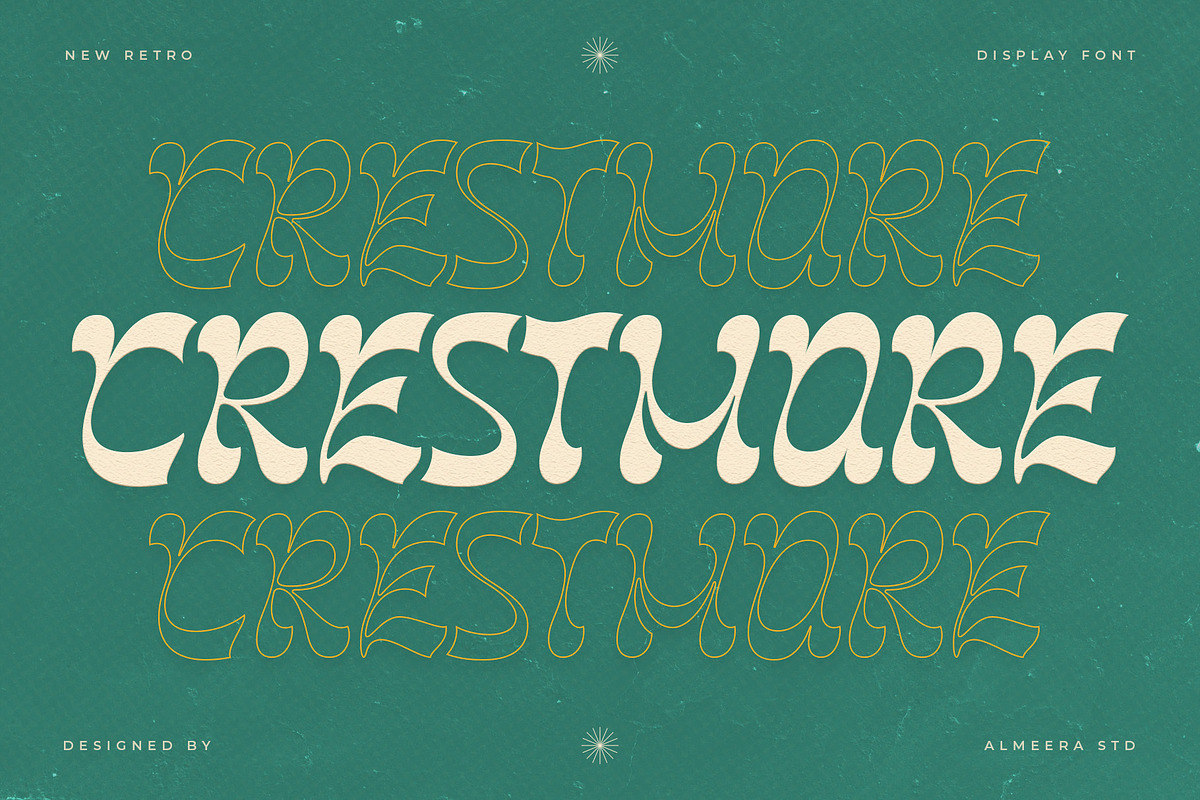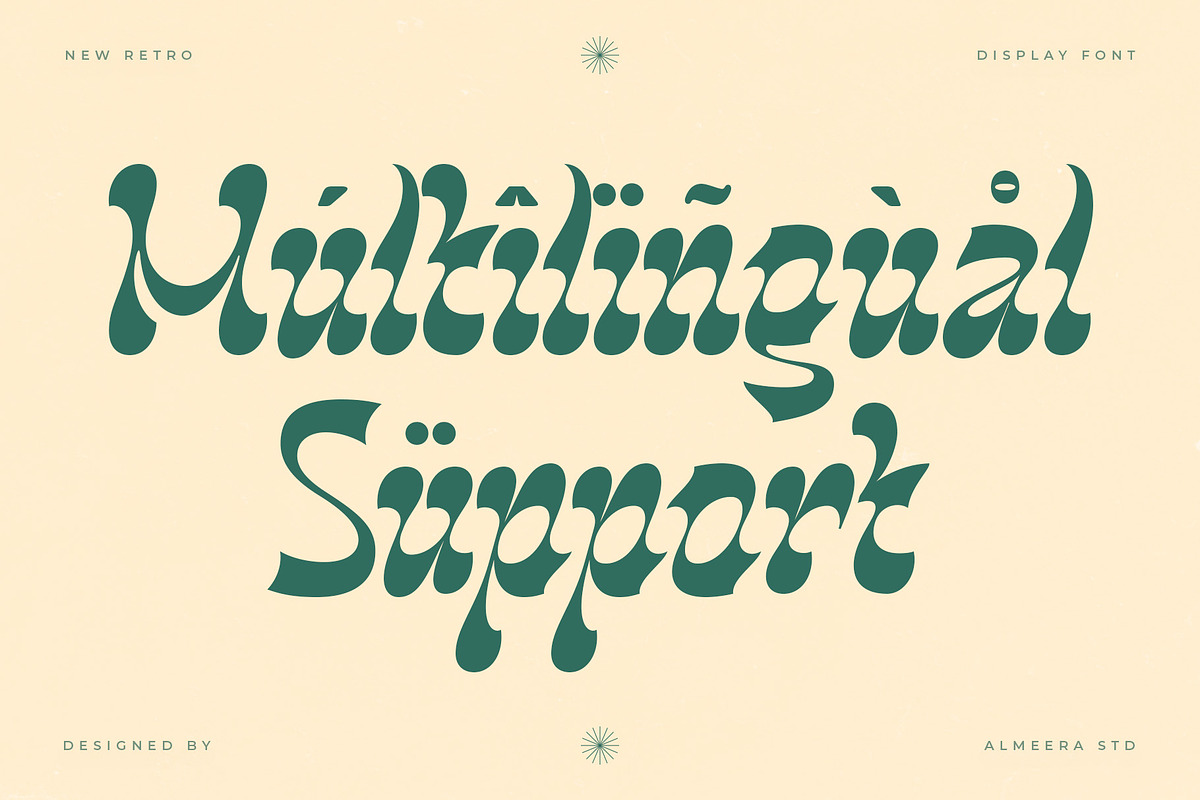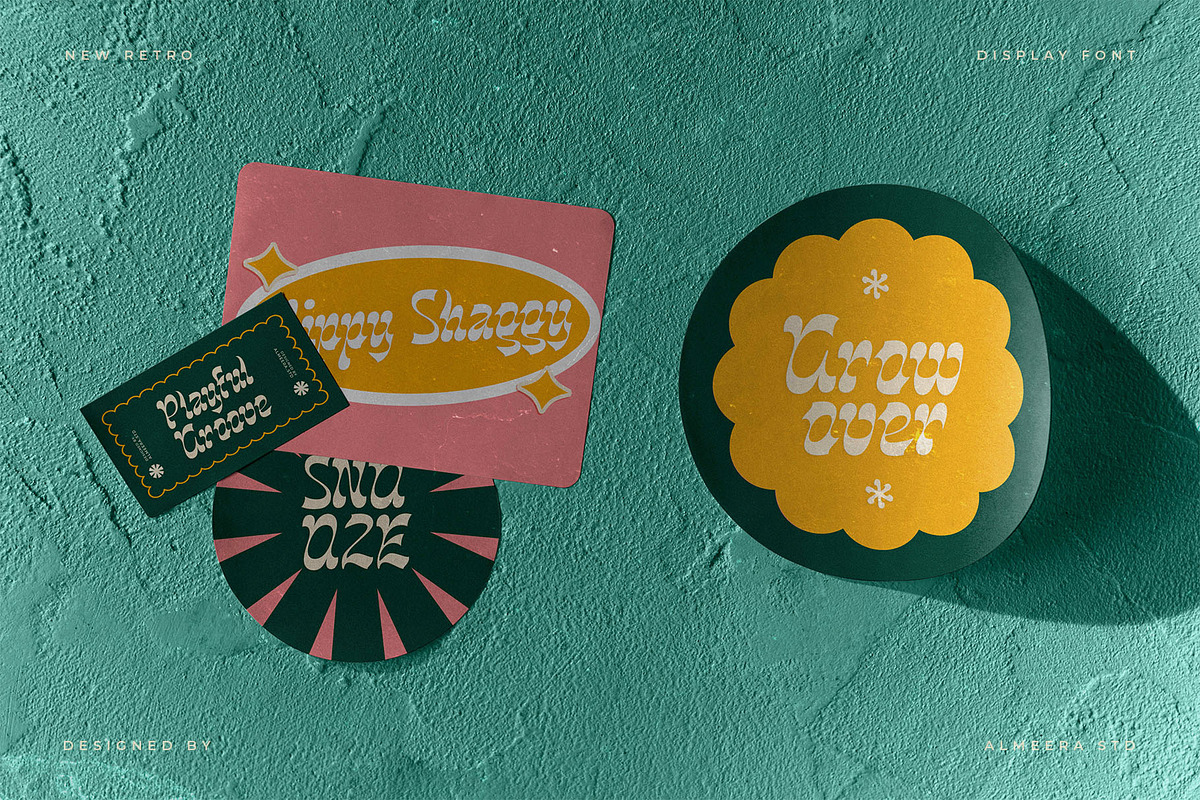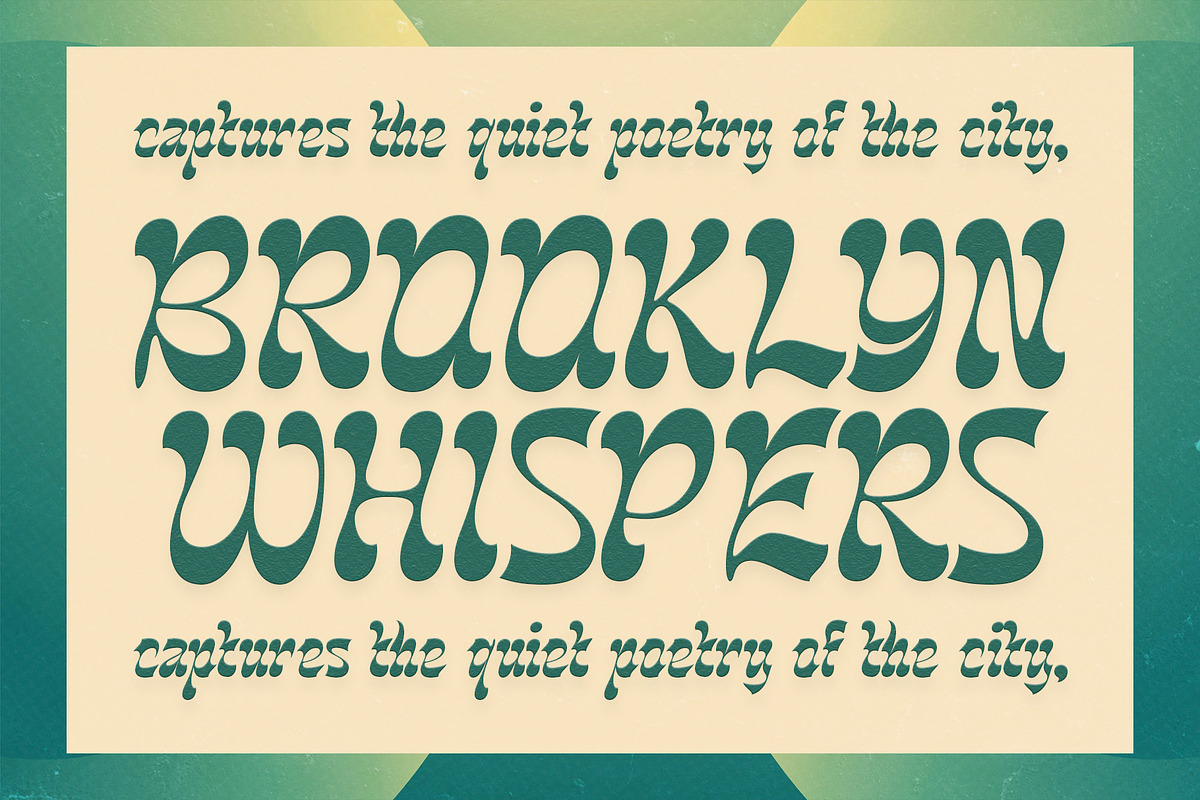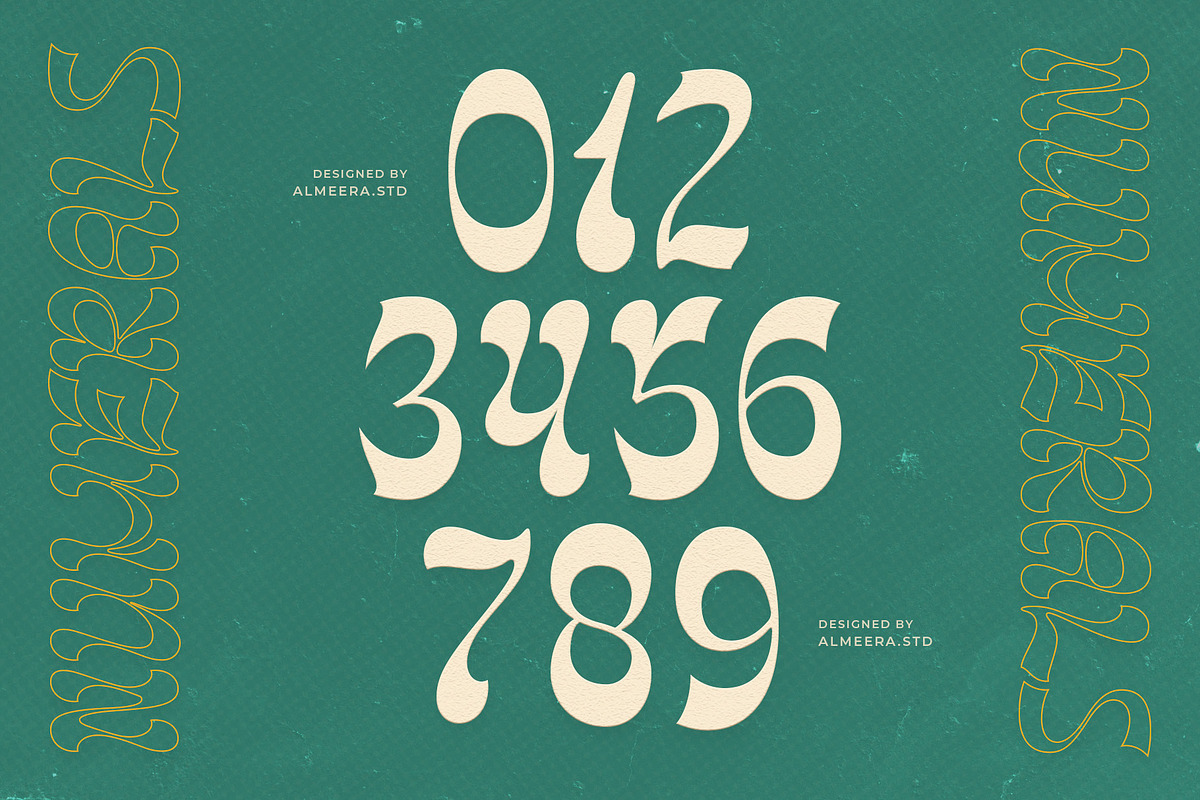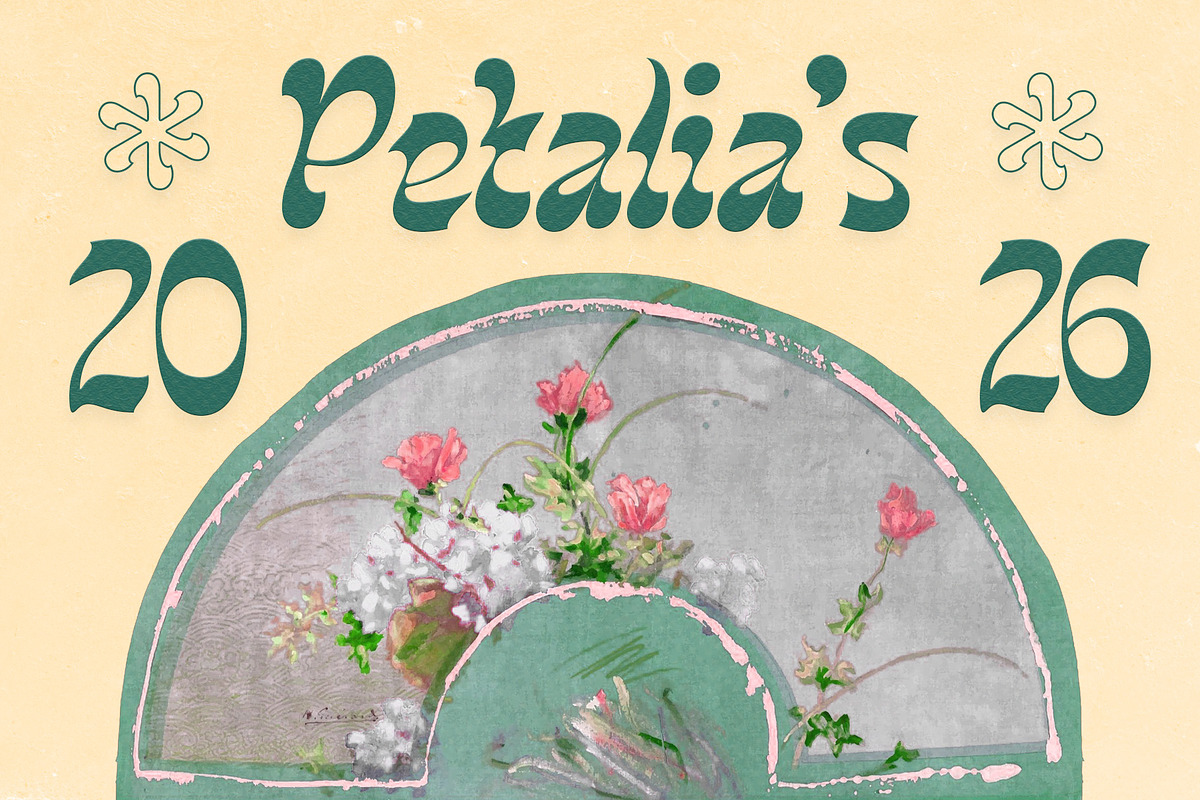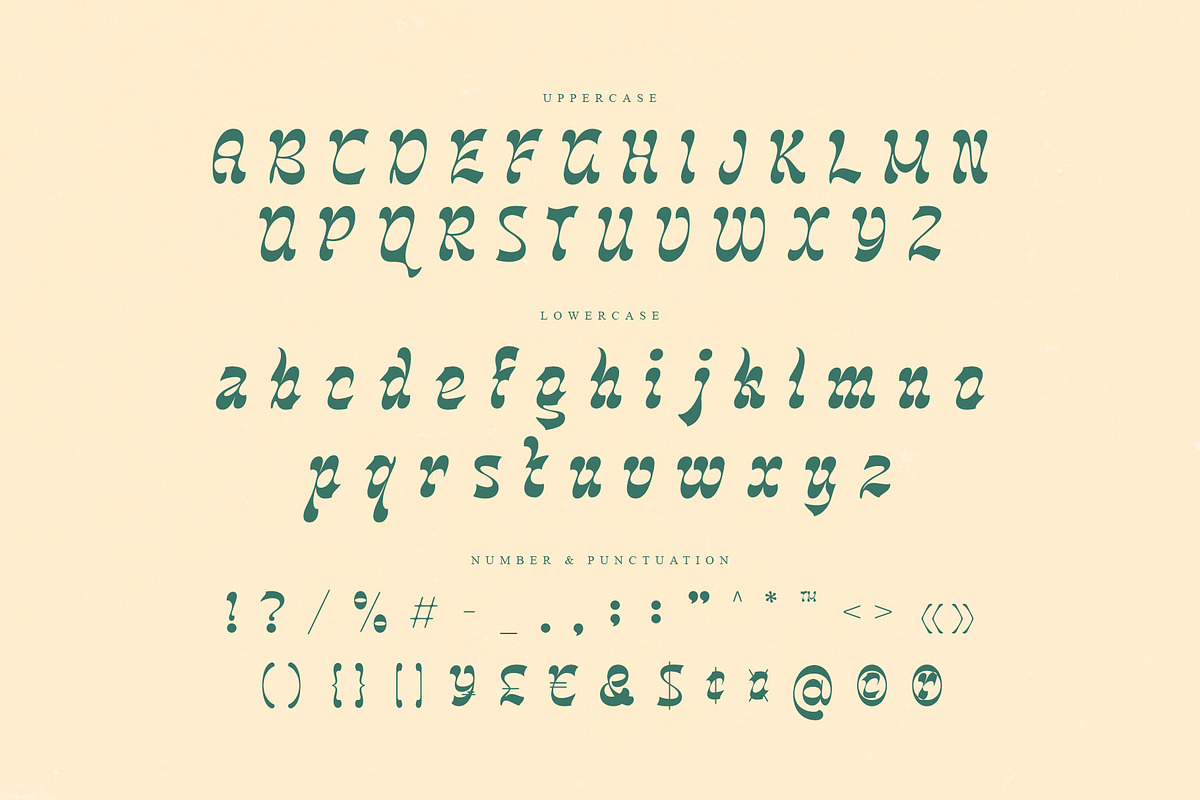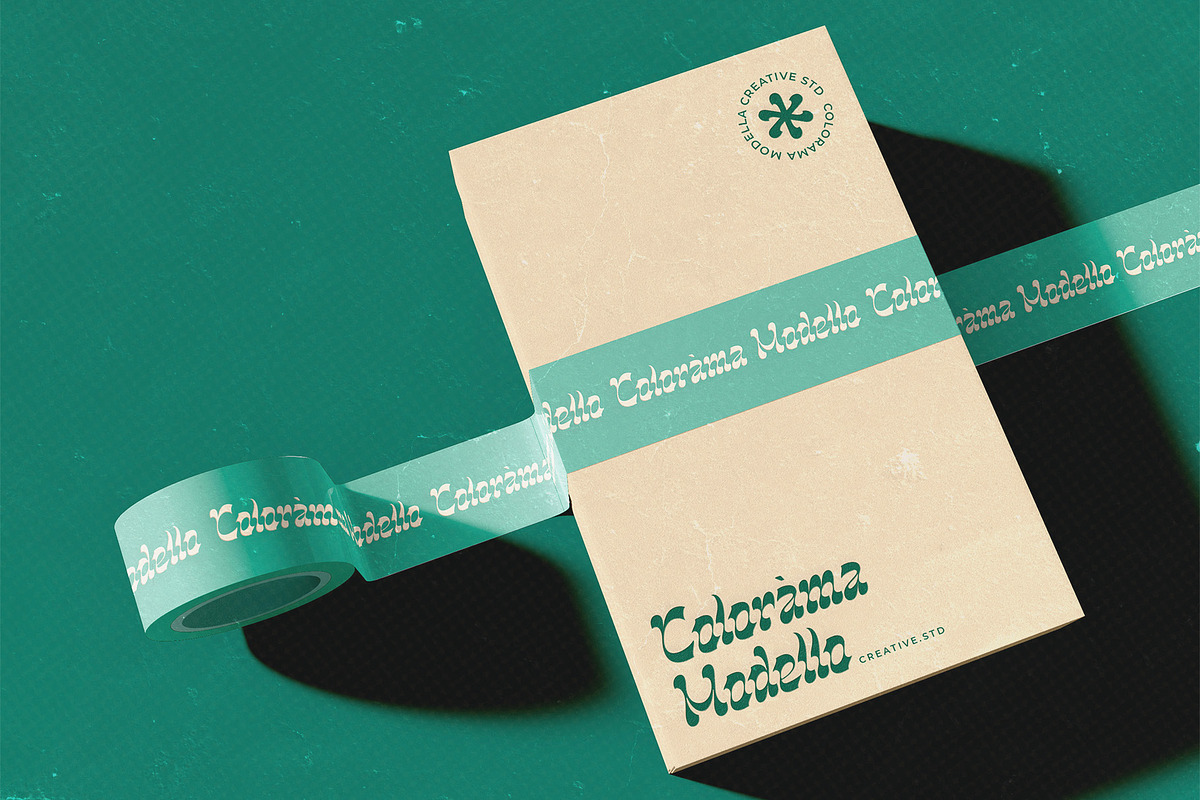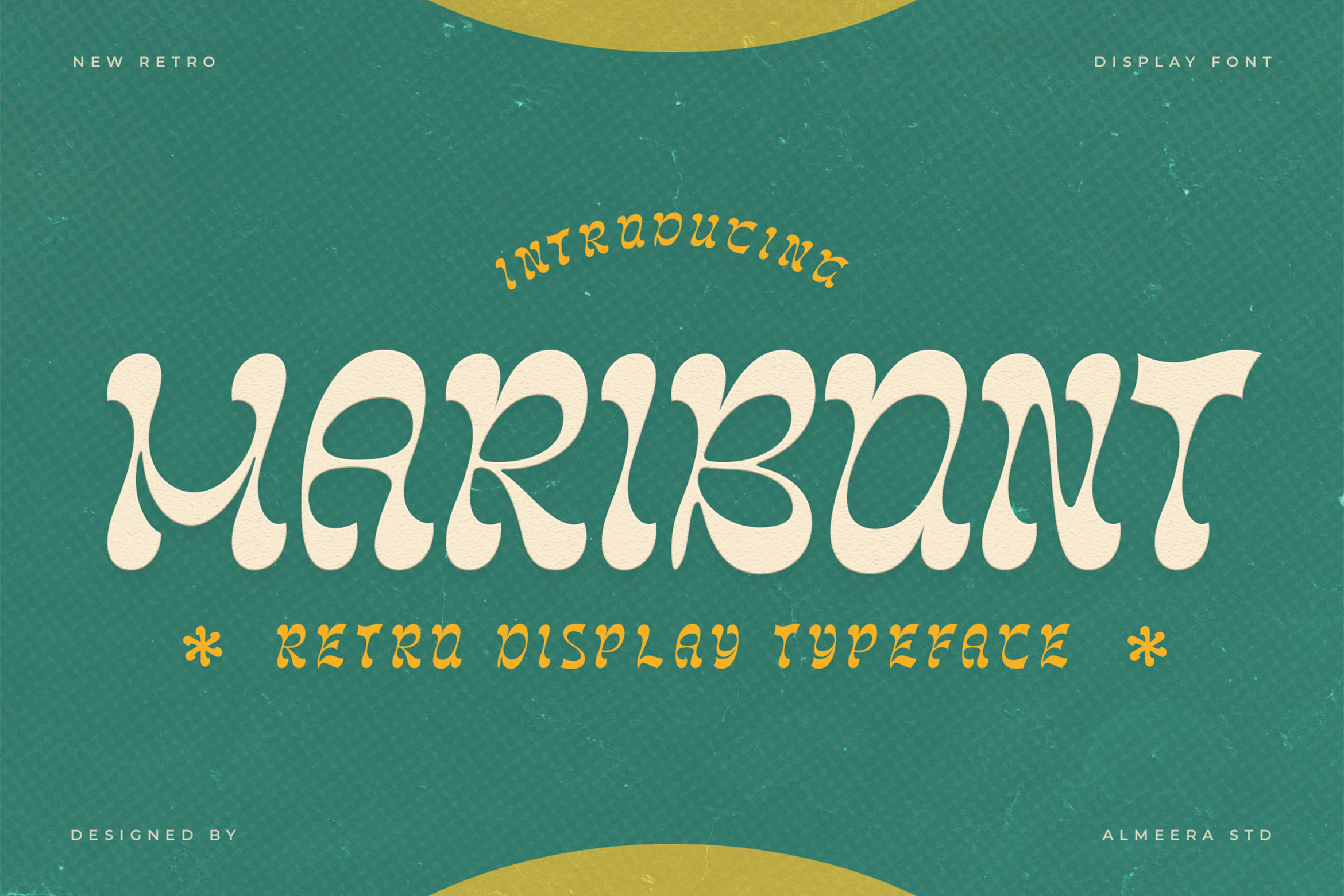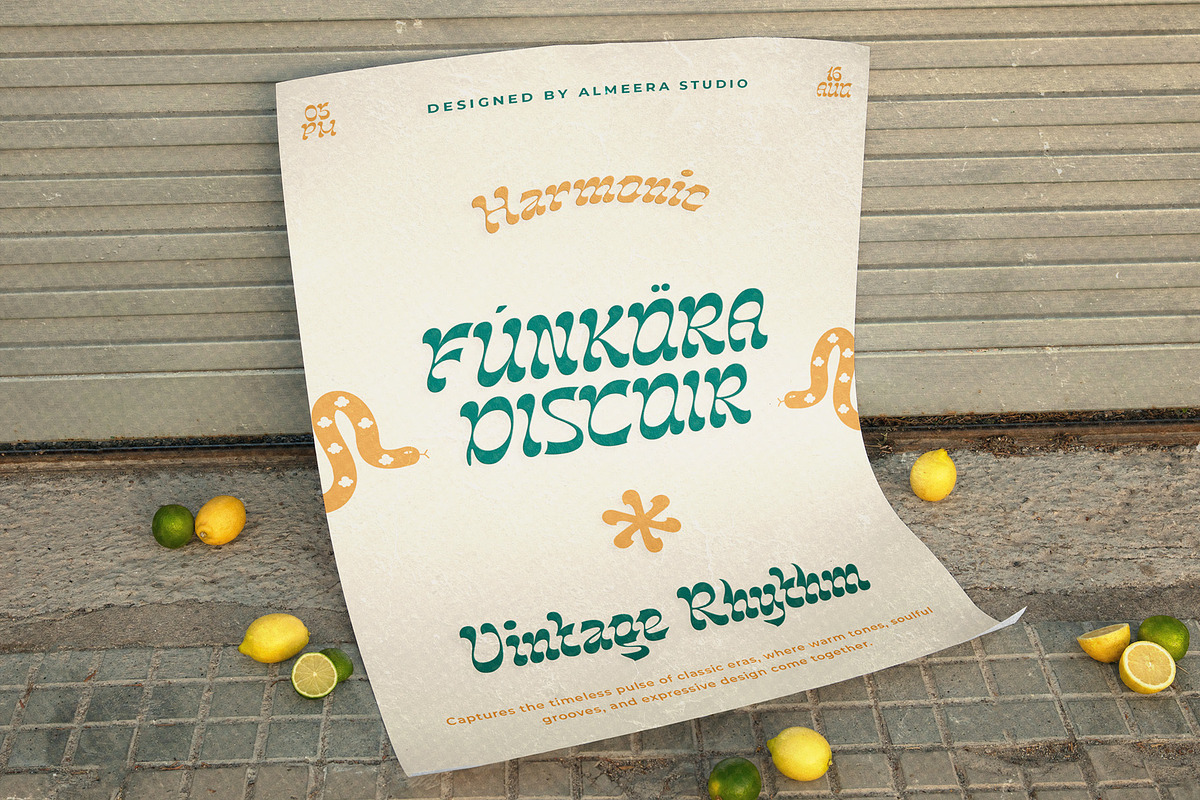
Maribont – Retro Display Typeface
Maribont is a retro-inspired display typeface with bold shapes, playful curves, and a strong vintage character. Its unique letterforms bring a cheerful and expressive tone while keeping a clean and readable structure.
This typeface is perfect for posters, branding, logos, packaging, headlines, social media graphics, and eye-catching visual designs. Maribont delivers a nostalgic yet fresh look that helps your designs stand out with personality and charm.
Maribont is made for designers who want a retro display font that feels fun, bold, and full of character.
- Numbers, fractions
- Punctuation and symbols